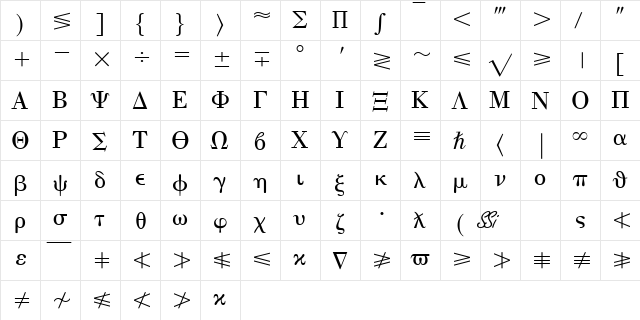
Eisago Greek SSi Regular
Eisago Greek SSi offers clean, dependable letterforms without strong stylistic allegiance, making it a practical choice for designers who need flexibility.